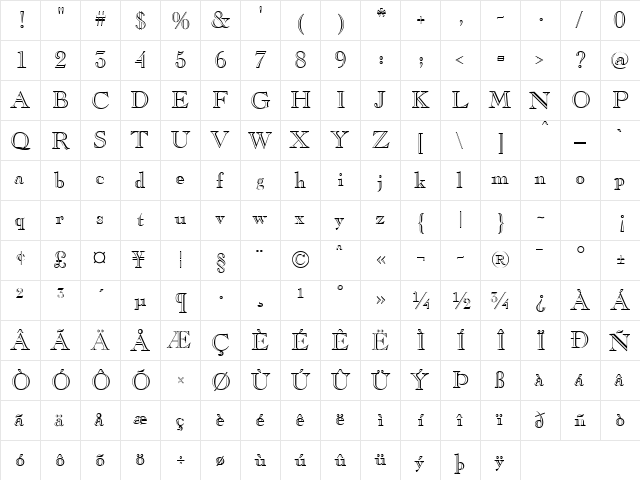
Gravure Regular
Design Context for Gravure Typeface
Gravure offers clean, dependable letterforms without strong stylistic allegiance, making it a practical choice for designers who need flexibility.